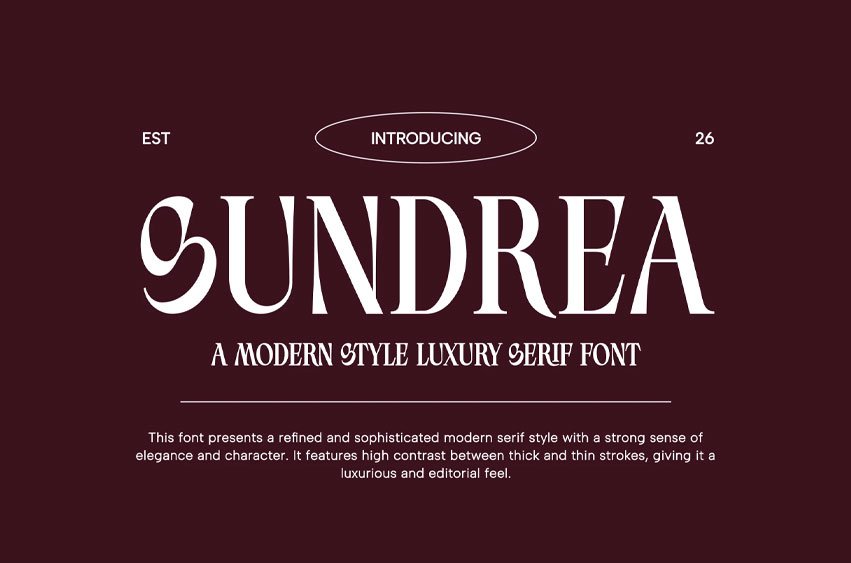
Sundrea Font is a modern luxury serif font that blends timeless elegance with distinctive artistic character. Designed with high contrast strokes and graceful curves, this typeface delivers a sophisticated editorial appearance perfect for premium branding and creative design projects.
Its unique letterforms combine classic serif structure with decorative modern details, creating a refined visual identity that feels both fashionable and exclusive. Sundrea is ideal for luxury logos, magazine headlines, wedding invitations, cosmetic packaging, fashion campaigns, social media designs, and elegant typography layouts.
With its stylish aesthetic and strong personality, Sundrea brings a luxurious and memorable touch to every composition.